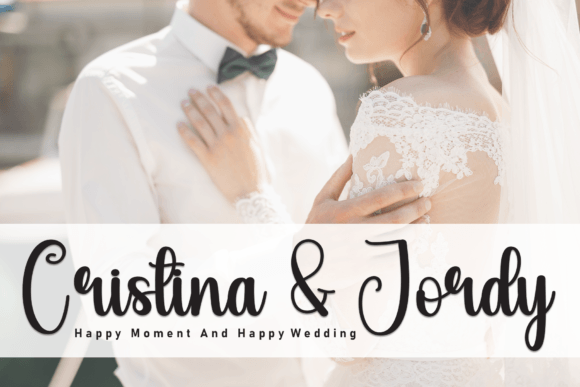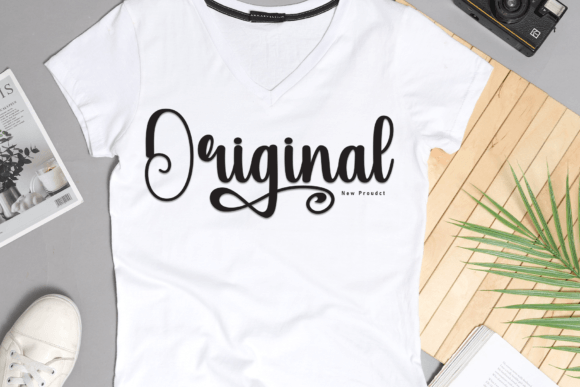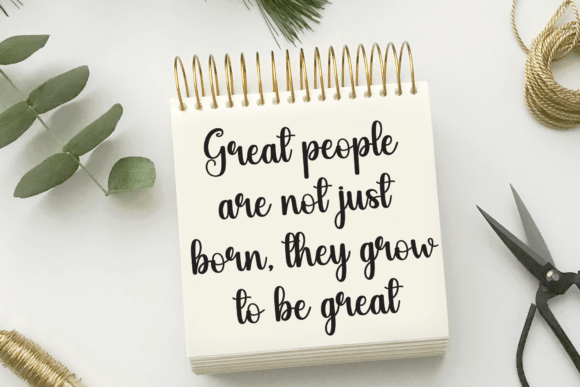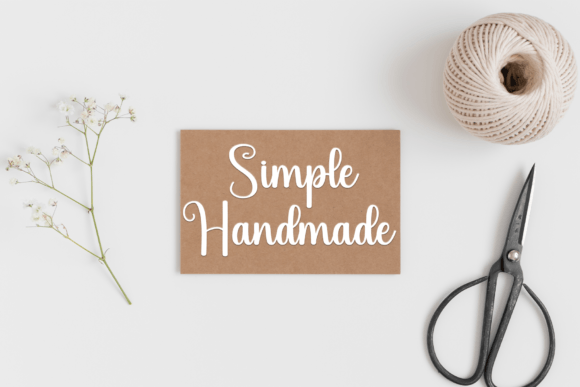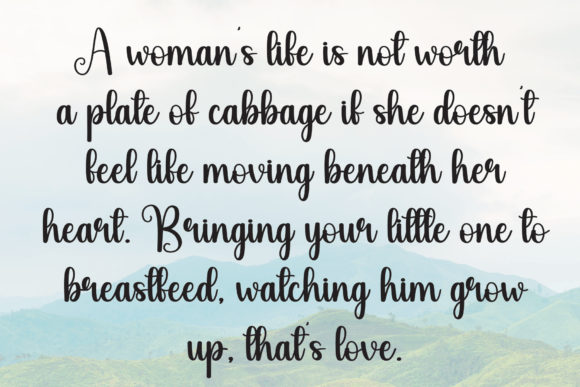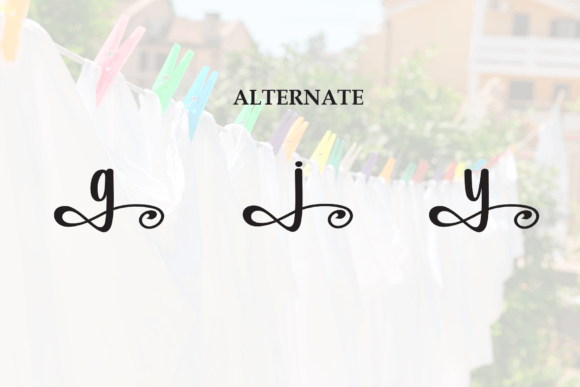
Drying Font: The Sweet and Friendly Handwritten Display Font
Are you looking for a font that adds a touch of sweetness and friendliness to your designs? Look no further than Drying Font! This beautiful handwritten display font is perfect for creating eye-catching wedding invitations, cards, and other designs that require a fun and playful touch.
What is Drying Font?
Drying Font is a carefully crafted handwritten display font that exudes a sense of warmth and approachability. Its unique and charming lettering style makes it an ideal choice for designers and crafters who want to add a personal touch to their work. Whether you’re designing a wedding invitation, a greeting card, or a social media graphic, Drying Font is sure to make your design stand out.
Characteristics of Drying Font
So, what makes Drying Font so special? Here are some of its key characteristics:
- Cute and Fun: Drying Font is a playful and whimsical font that’s sure to bring a smile to your face. Its fun and carefree style makes it perfect for designs that require a lighthearted touch.
- Handwritten: This font features beautiful handwritten lettering that’s full of character and personality. Each letter is carefully crafted to create a sense of warmth and authenticity.
- Display Font: Drying Font is a display font, which means it’s designed to make a statement. It’s perfect for headlines, titles, and other design elements that need to grab attention.
- Sweet and Friendly: The overall feel of Drying Font is sweet and friendly. It’s a font that’s sure to make your designs feel approachable and inviting.
Uses for Drying Font
So, what can you use Drying Font for? The possibilities are endless! Here are some ideas to get you started:
- Wedding Invitations: Drying Font is a perfect choice for wedding invitations, save-the-date cards, and other wedding-related designs.
- Greeting Cards: This font is also great for creating greeting cards for birthdays, holidays, and other special occasions.
- Social Media Graphics: Add a touch of personality to your social media graphics with Drying Font. It’s perfect for creating eye-catching posts and stories.
- Branding: Drying Font can also be used for branding purposes, such as creating logos, business cards, and other marketing materials.
Why Choose Drying Font?
With so many fonts to choose from, why should you choose Drying Font? Here are just a few reasons:
- Unique Style: Drying Font has a unique and distinctive style that’s sure to set your designs apart.
Tips for Using Drying Font
Here are a few tips for getting the most out of Drying Font:
- Use it Sparingly: Because Drying Font is a display font, it’s best to use it sparingly. Use it for headlines and titles, and a more straightforward font for body text.
- Experiment with Colors: Drying Font looks great in a variety of colors. Experiment with different colors to find the one that works best for your design.
- Pair it with Other Fonts: Drying Font pairs well with a variety of other fonts. Experiment with different font combinations to find the one that works best for your design.
Drying Font is a beautiful and versatile handwritten display font that’s perfect for adding a touch of sweetness and friendliness to your designs. With its unique style, ease of use, and high-quality design, it’s a great choice for designers and crafters who want to create eye-catching wedding invitations, cards, and other designs. So why not give Drying Font a try? Your designs are sure to thank you!